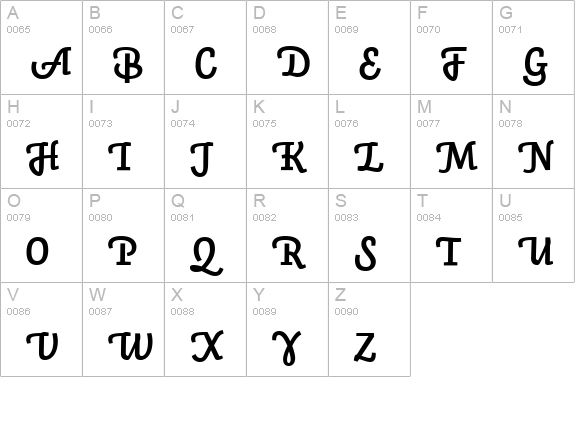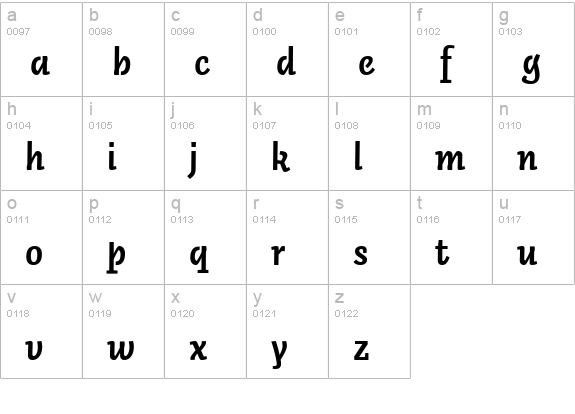
Auto 3 Bold Italic LF Font Details
Auto 3 Bold Italic LF is a strong, high-contrast, italic variant in the Auto typeface family \xE2\x80\x94 well suited to headlines, attention-grabbing titles, and strong calls-to-action.
Auto 3 Bold Italic LF font is a dynamic and modern typeface that exudes confidence and sophistication. Its striking bold weight combined with the elegant italic style makes it a perfect choice for headlines, titles, and branding projects that demand attention. The sleek and streamlined design of Auto 3 Bold Italic LF font gives any text a professional and polished look. One of the best features of Auto 3 Bold Italic LF font is that it is available for free download at FontsMarket.com. This means that you can effortlessly add this stylish font to your design arsenal without any cost. Whether you are a designer working on a commercial project or a student looking to enhance your creative endeavors, Auto 3 Bold Italic LF font is a versatile and high-quality option that won't break the bank. Let your creativity soar with the bold and italic beauty of Auto 3 Bold Italic LF font, now conveniently accessible for free at FontsMarket.com.